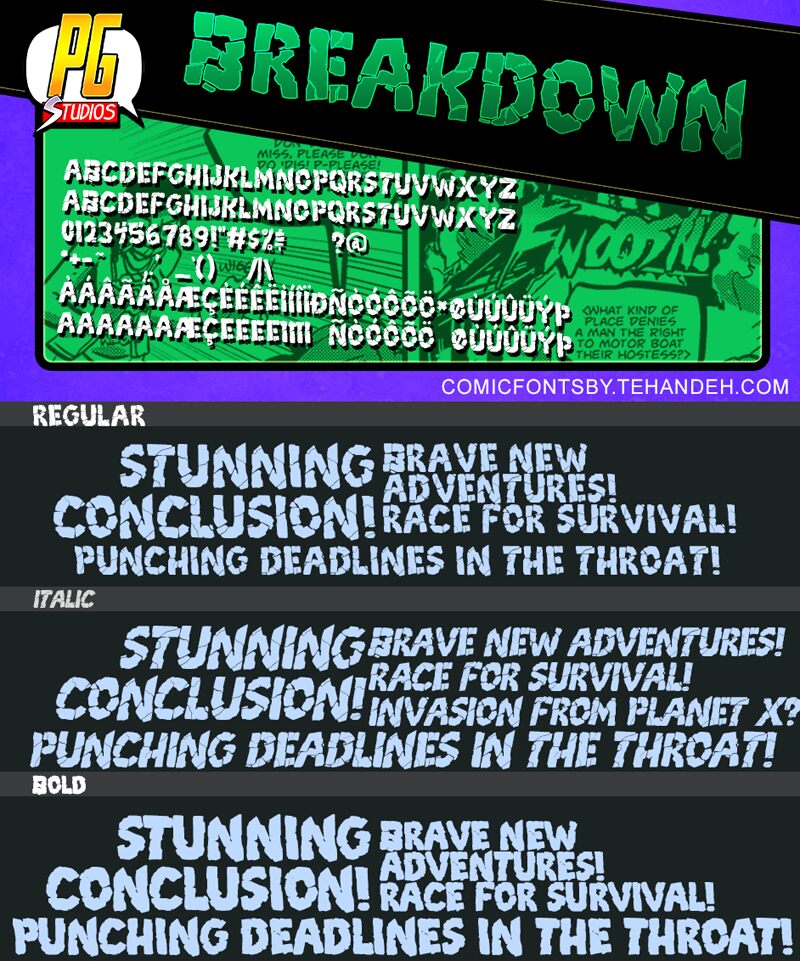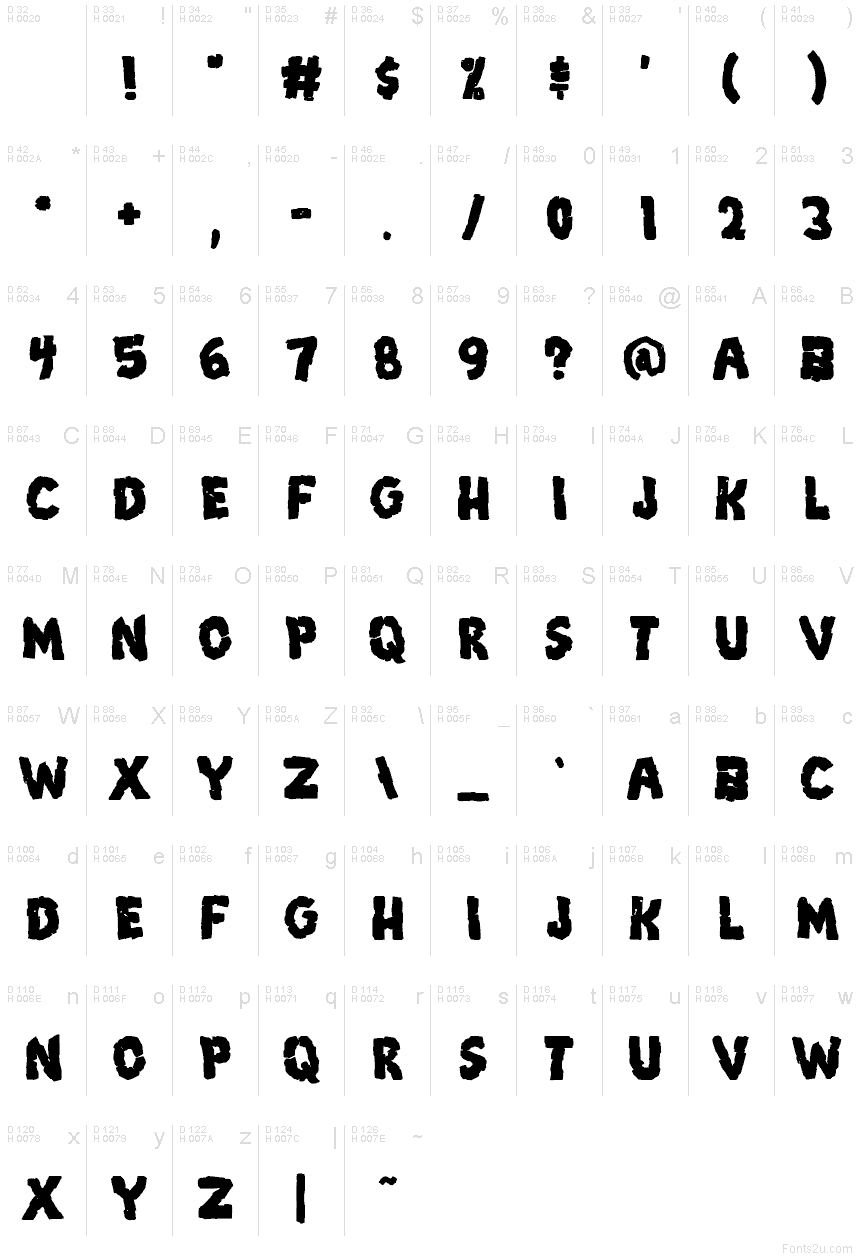
Breakdown PG Bold
Breakdown PG Bold font by PressGang Studios is a bold and distorted display font with a rugged, textured, and vintage aura. The grungy and distressed character of the typeface stands out thanks to its edgy aesthetic, making it highly noticeable in any design application.
Use this free display font for posters, magazines covers, album art design, video game design, website headers, social media banners, short animated films/series typography scenes, or as a brand typeface for tech brands. Possible other uses include newspapers typographical elements or digital department stores.